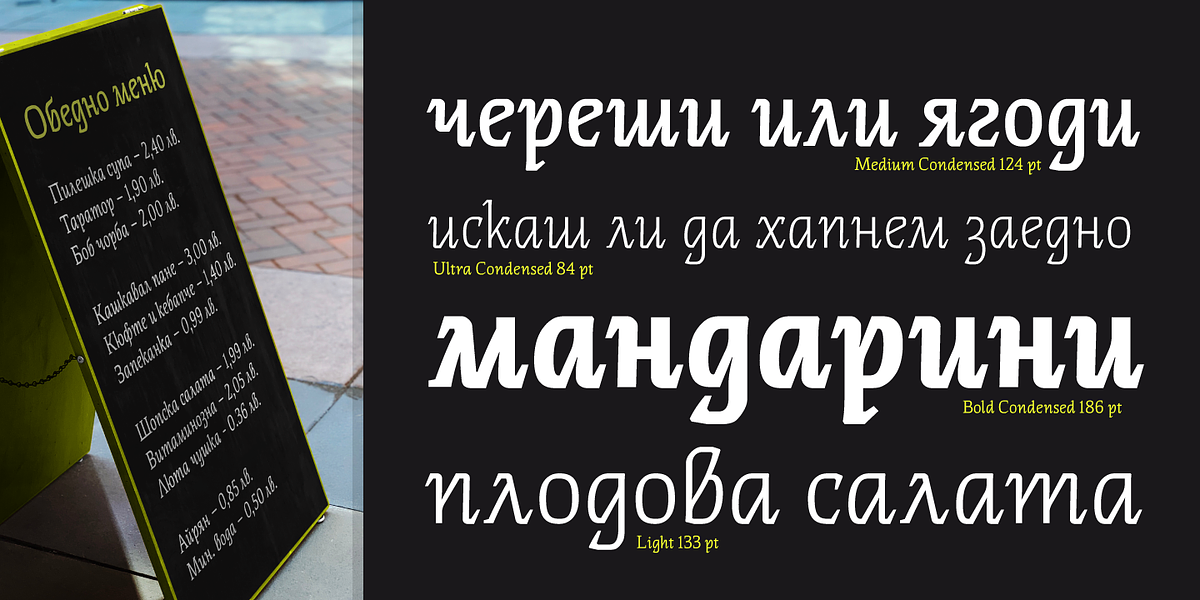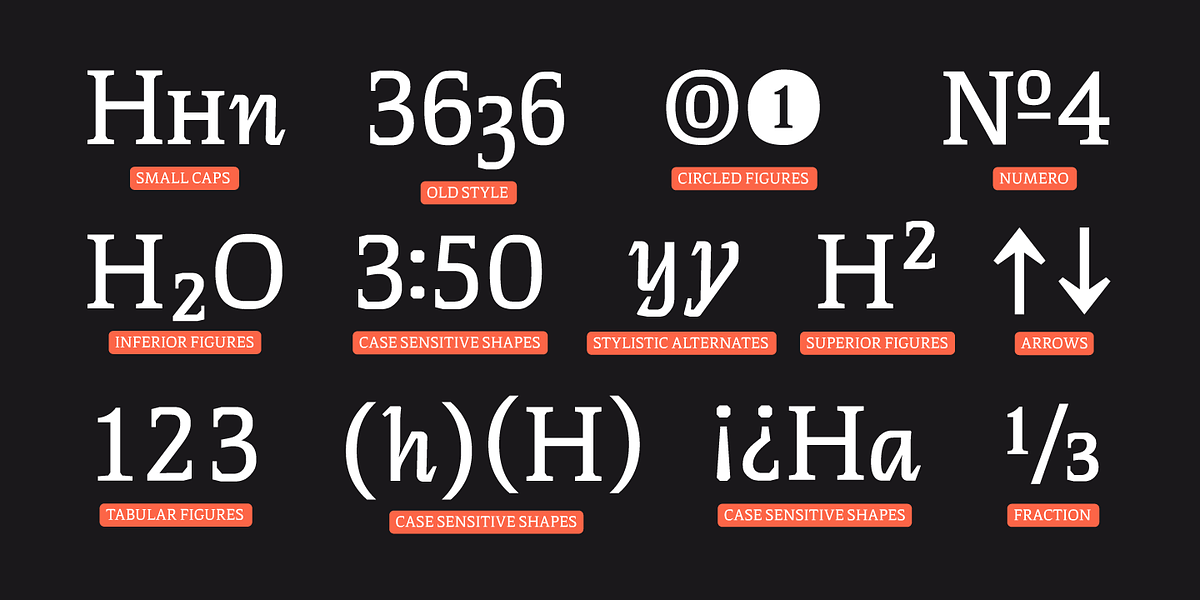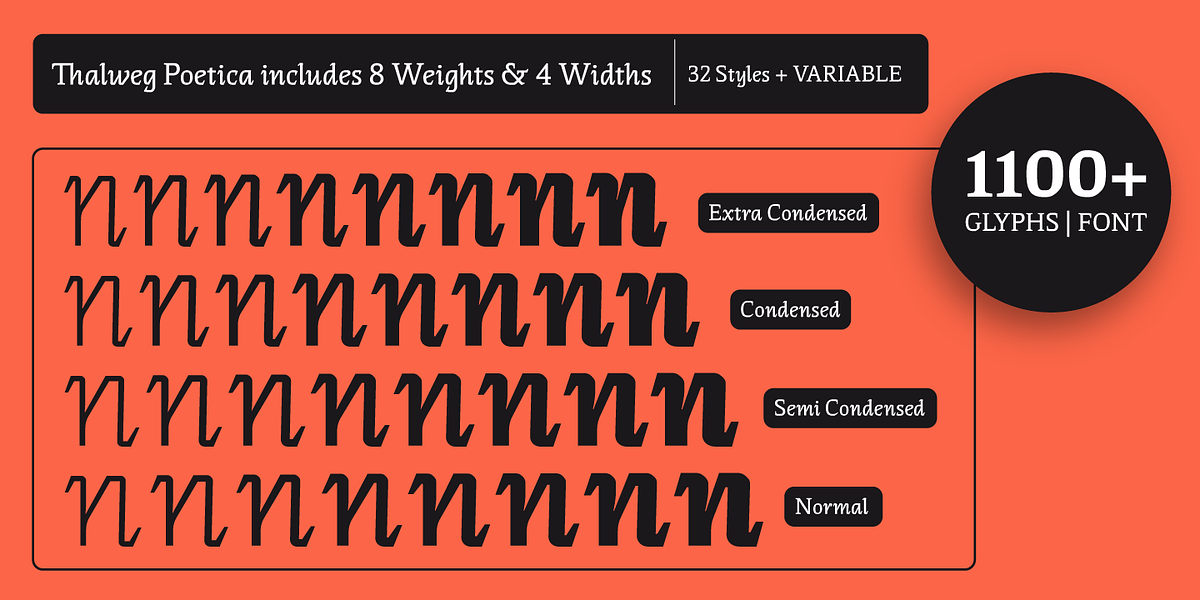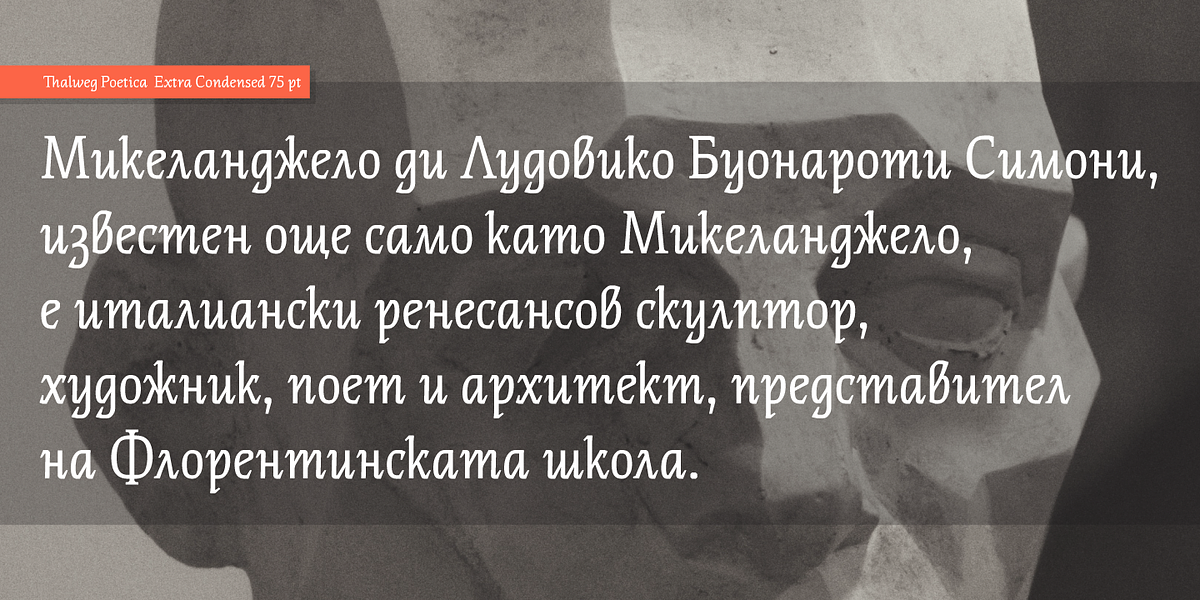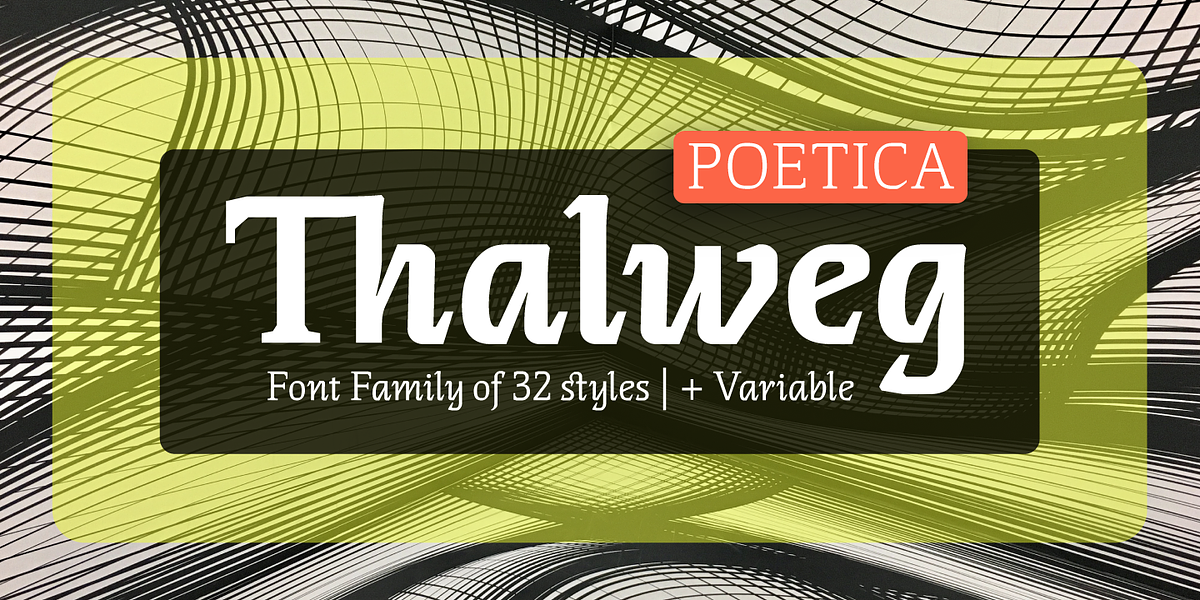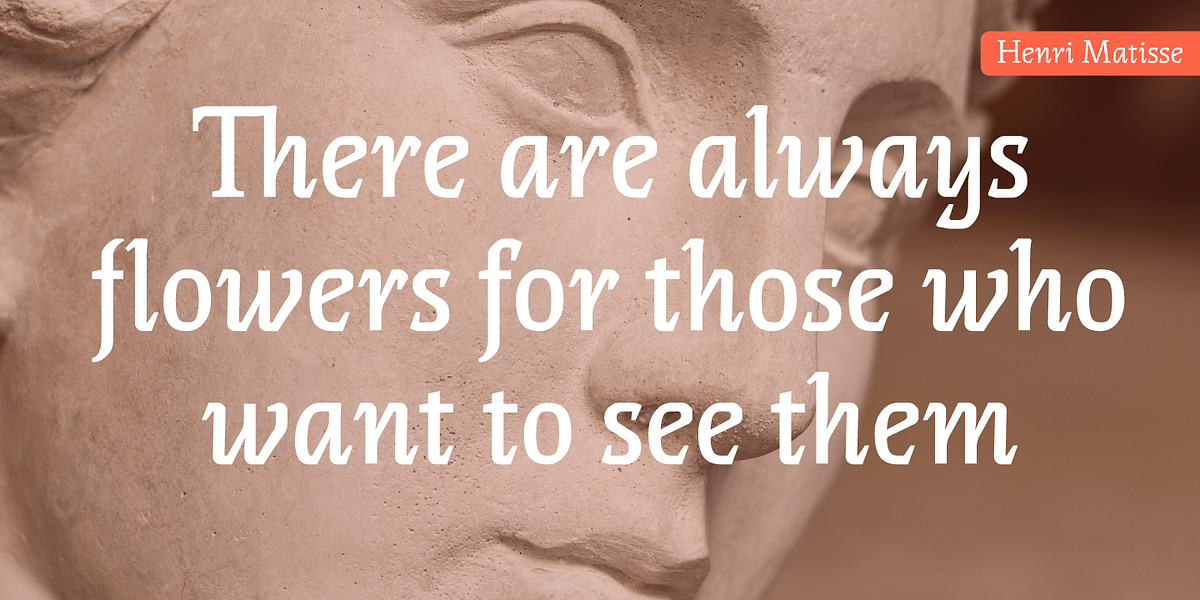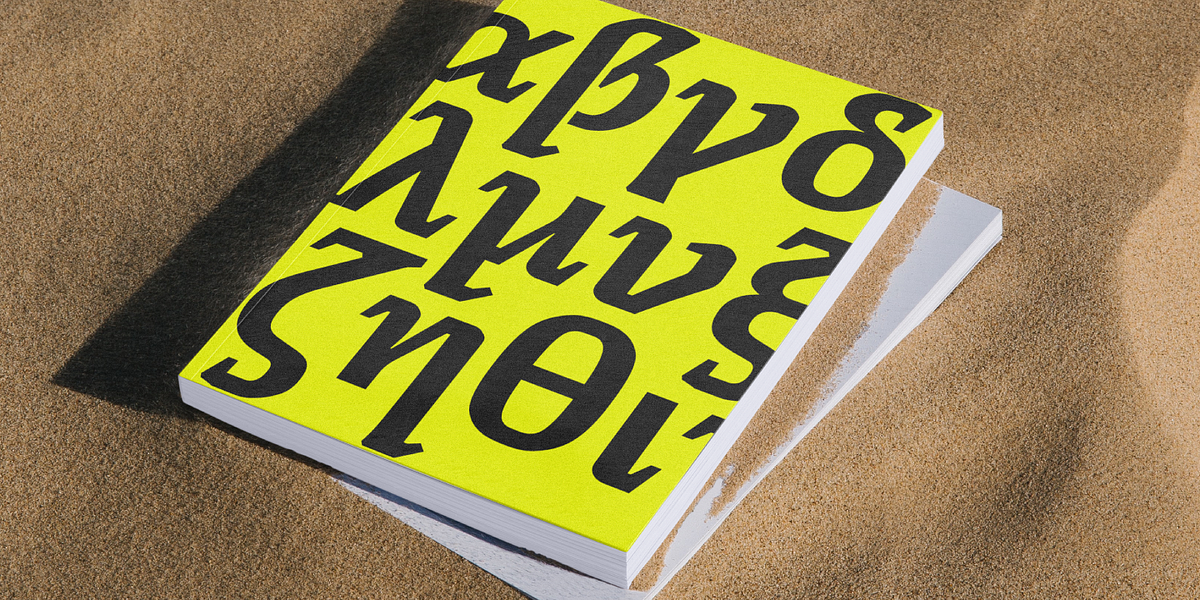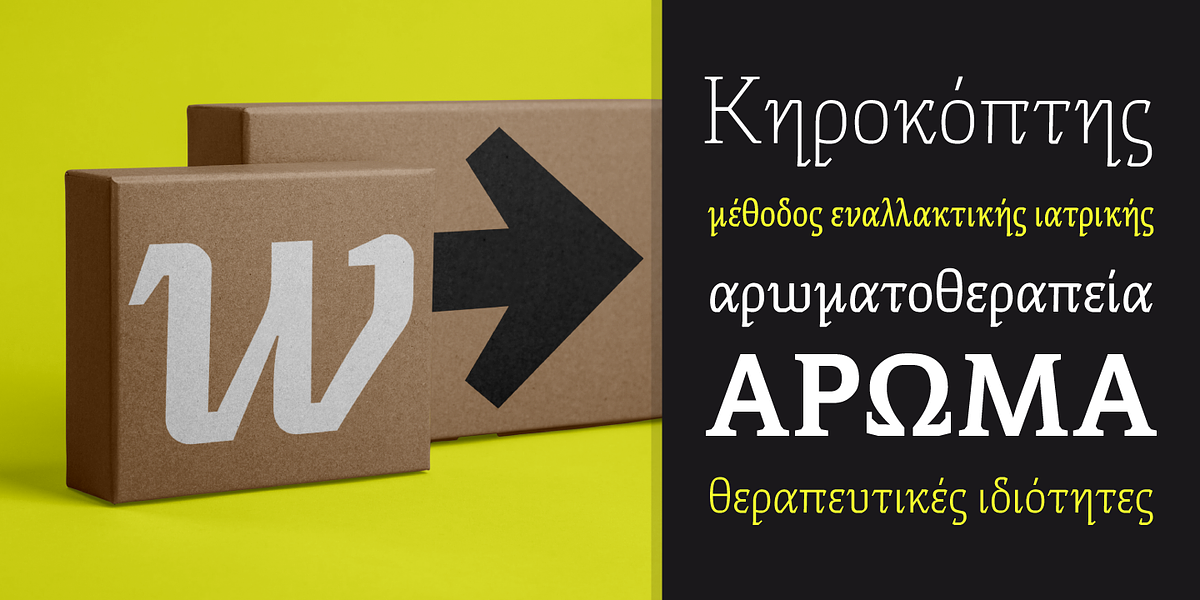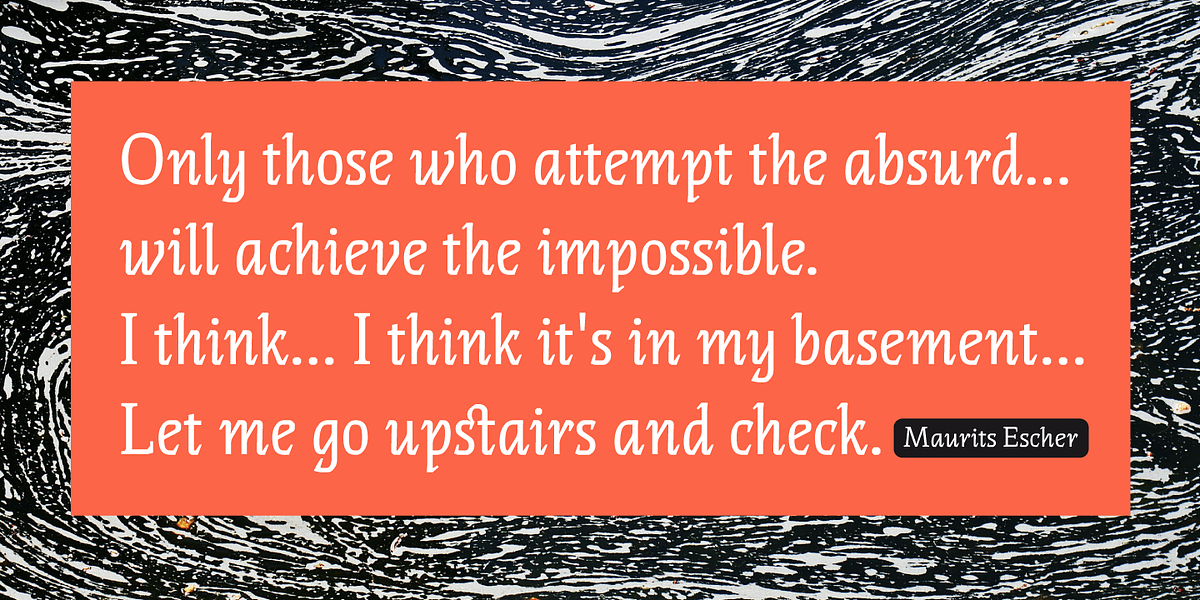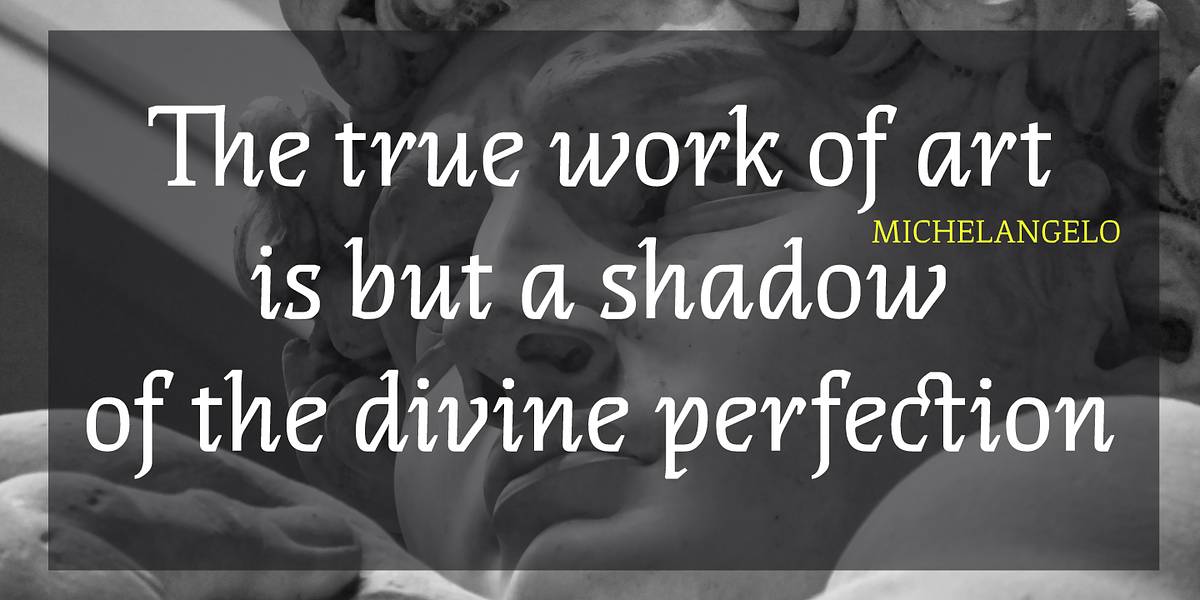
Thalweg Poetica
Thalweg Poetica is a handmade display serif font designed by Ivan Kyosev. It features a unique angular aesthetic and comes in a wide range of weights and widths, making it suitable for various applications. The font includes extensive language support (Latin, Cyrillic, and Greek) and numerous OpenType features like small caps, ligatures, superscript/subscript, and different figure styles. Its versatility allows it to be used effectively in both body text and display contexts.